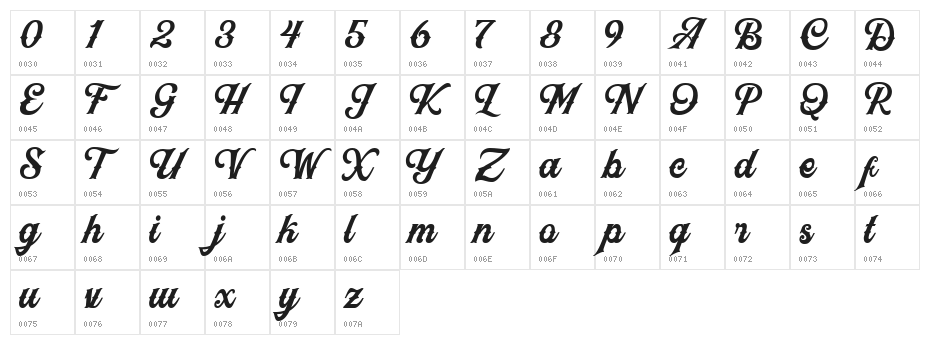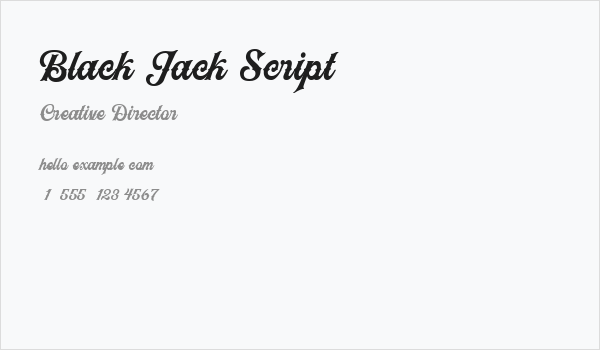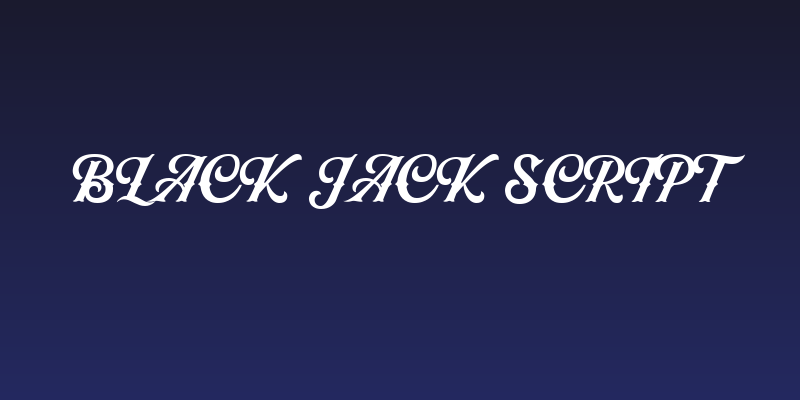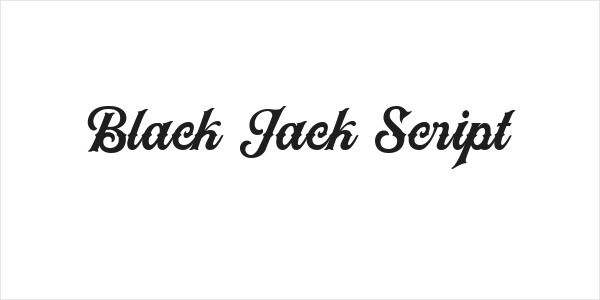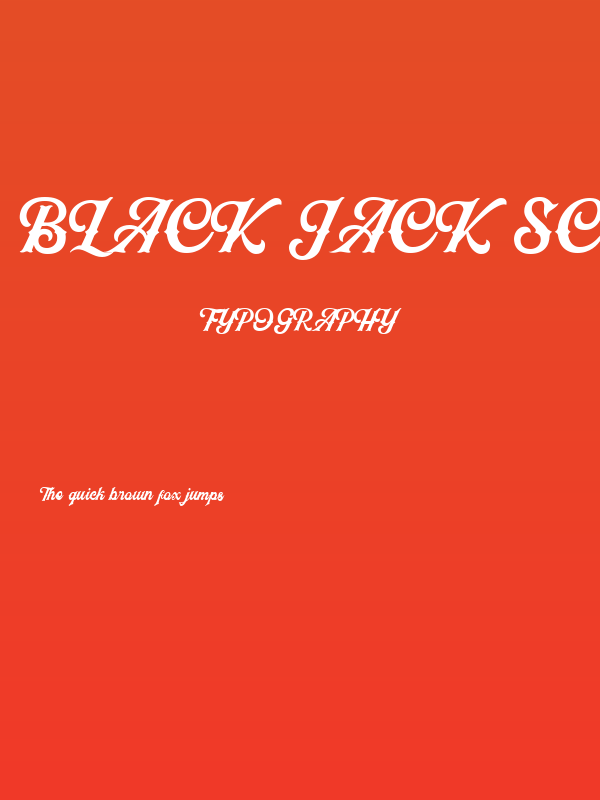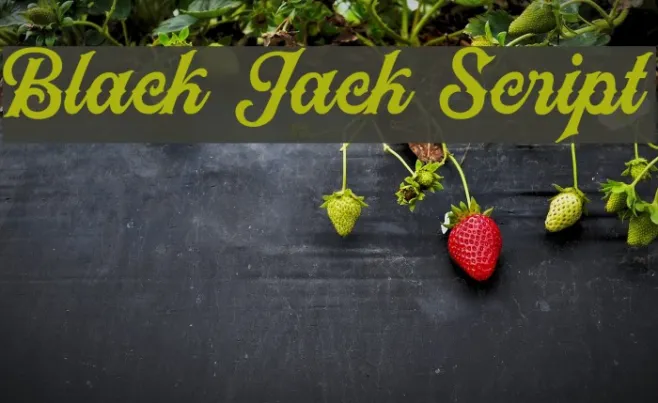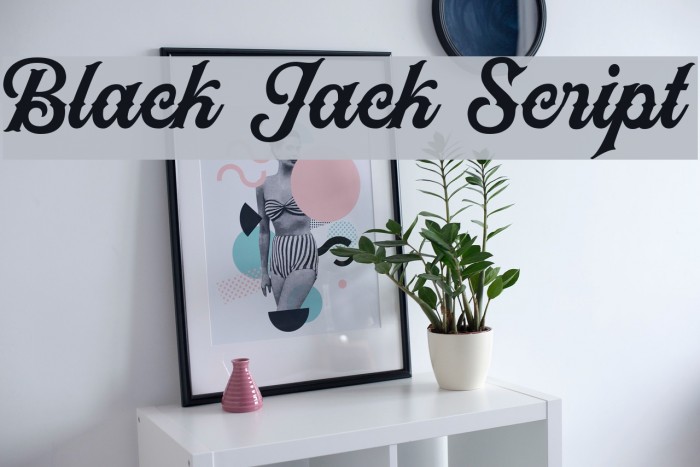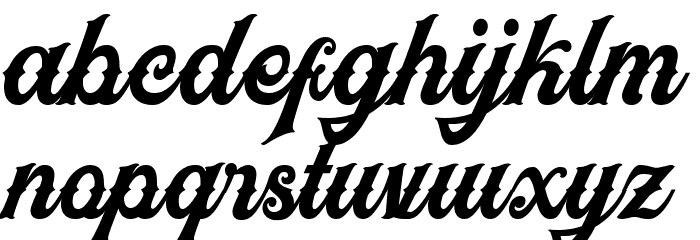
Black Jack Script Font
Black Jack Script Description
This font features a bold, cursive style with a strong emphasis on fluidity and elegance. The uppercase letters are characterized by their sweeping curves and dramatic flourishes, while the lowercase letters maintain a consistent flow with slightly exaggerated loops and tails. The numerals are equally stylized, with a unique flair that complements the overall script aesthetic. The special characters, including symbols like $, ?, &, %, !, #, *, and =, are designed to match the ornate style of the letters and numbers, ensuring a cohesive look across all text elements. This font's bold strokes and high contrast make it stand out, ideal for projects that require a touch of sophistication and flair.
| Proposed Projects | Ideal for wedding invitations, elegant branding, logo design, and decorative headlines. |